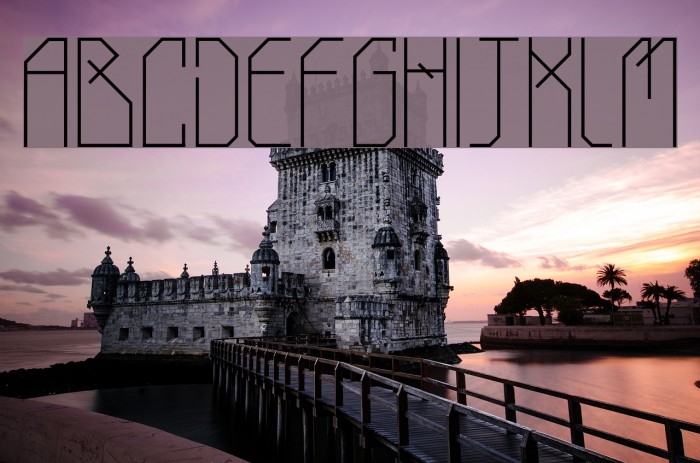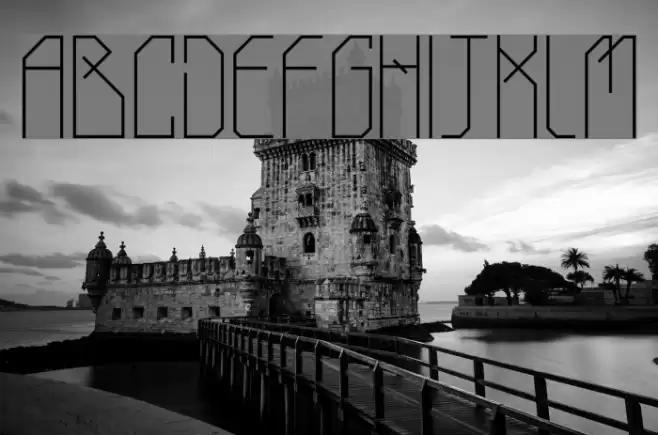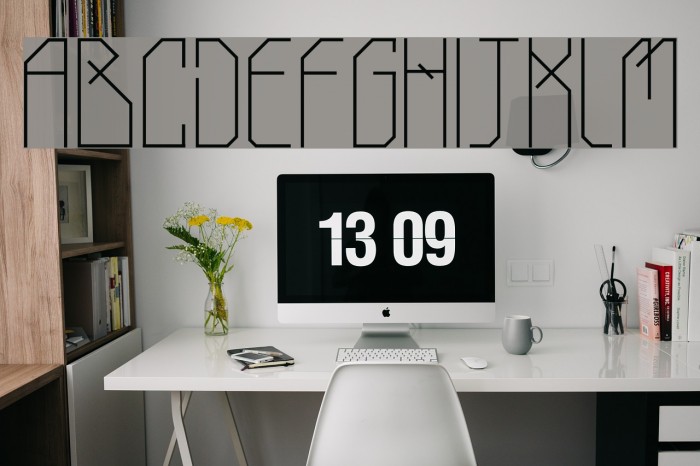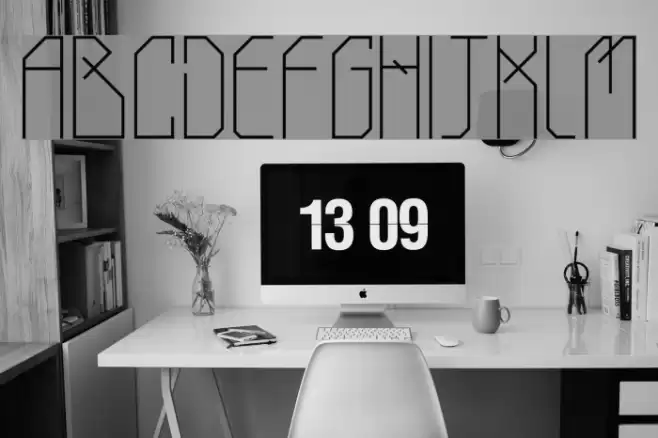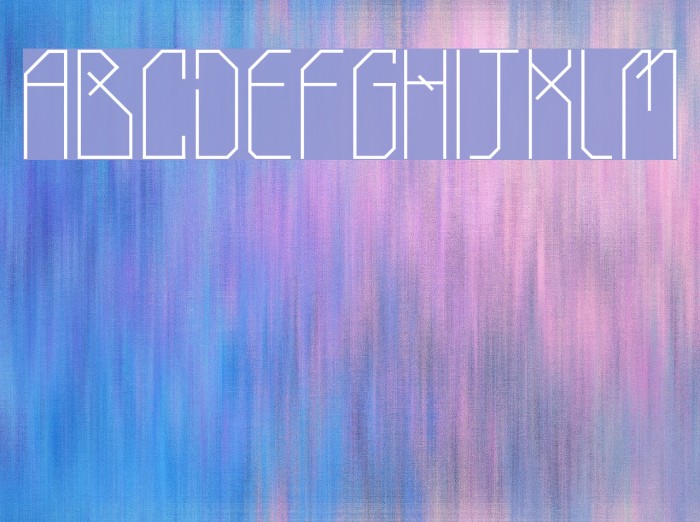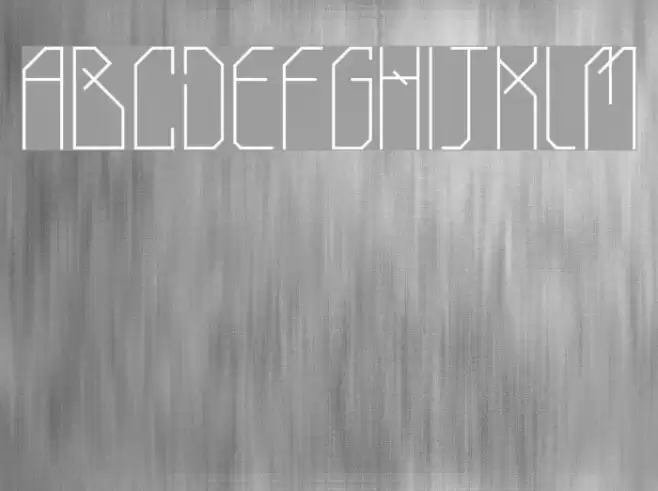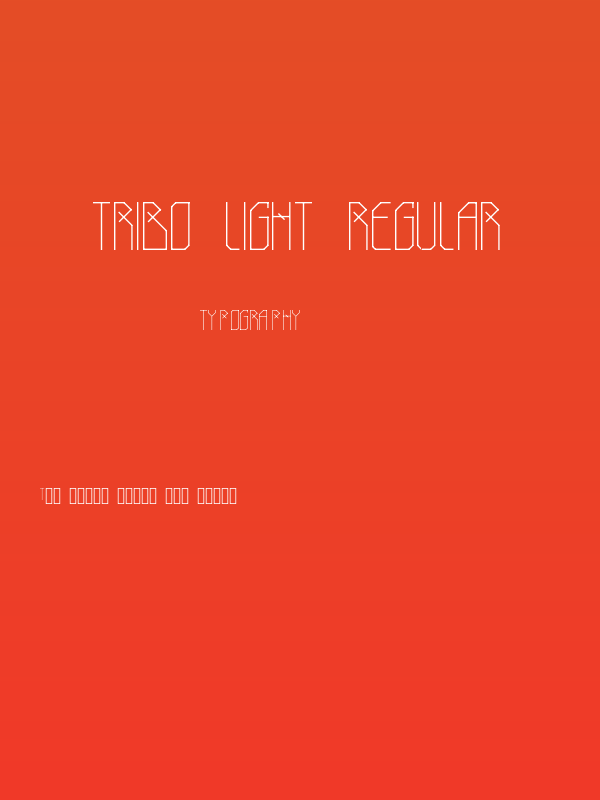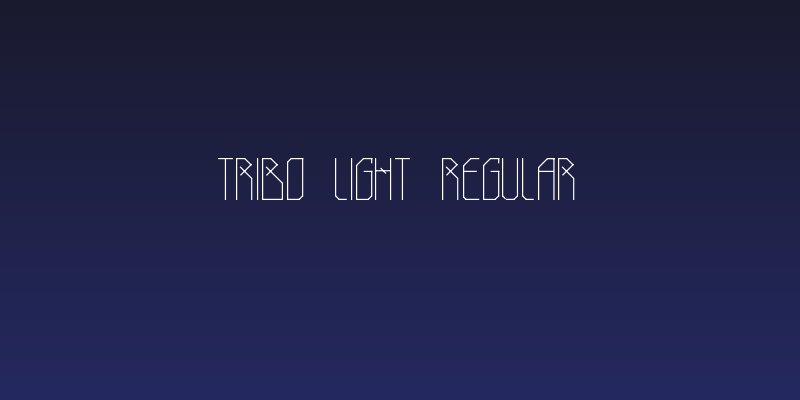
Tribo Light Regular Font
Tribo Light Regular Description
This font features a unique, geometric design with a futuristic and minimalist aesthetic. The uppercase letters are composed of straight lines and sharp angles, creating a sense of precision and modernity. The lowercase letters follow a similar style, maintaining consistency throughout the typeface. The numbers and special characters are designed with the same geometric principles, ensuring a cohesive look. The overall appearance is clean and structured, making it suitable for contemporary design projects.
| Use Case | Logos, Headlines |
| Proposed Projects | Ideal for tech branding, modern posters, and digital interfaces. |